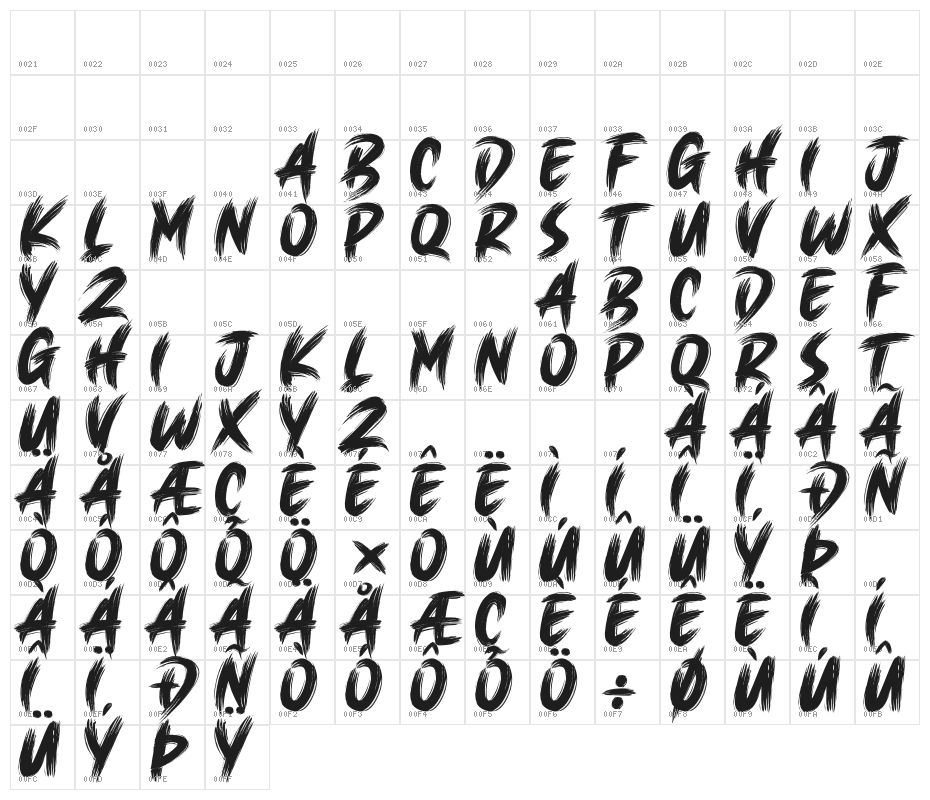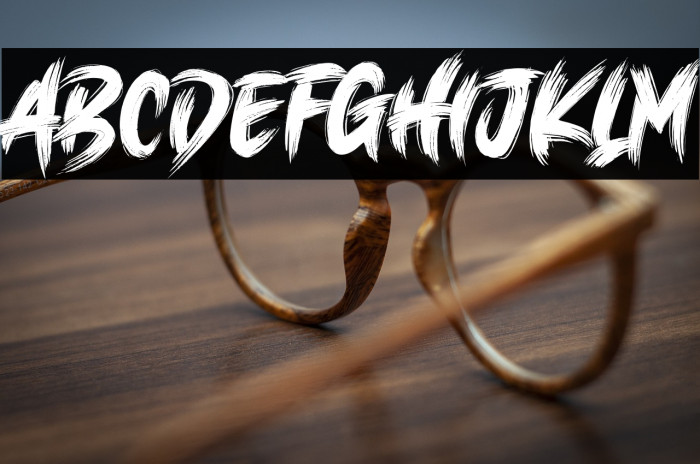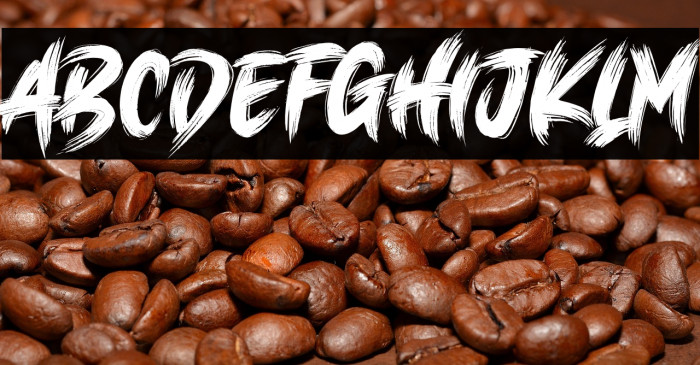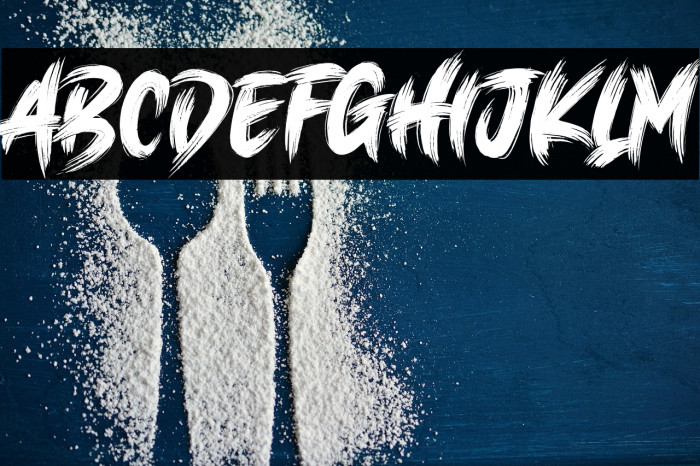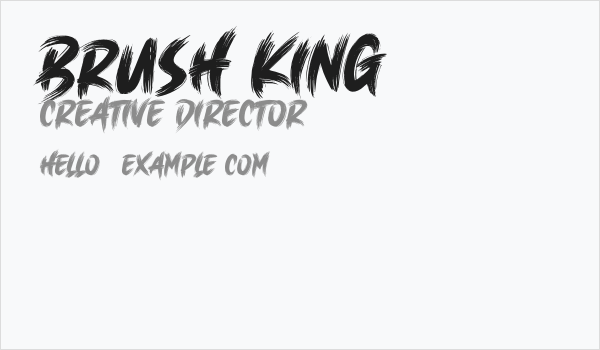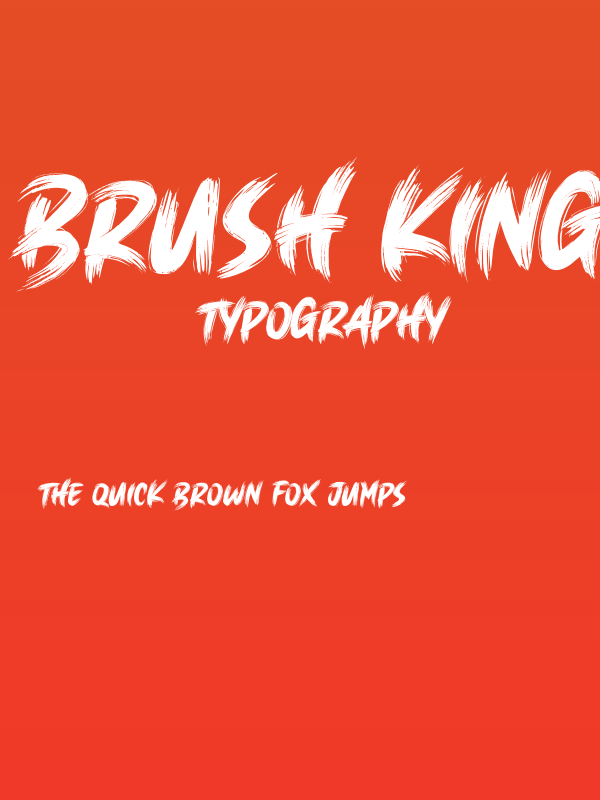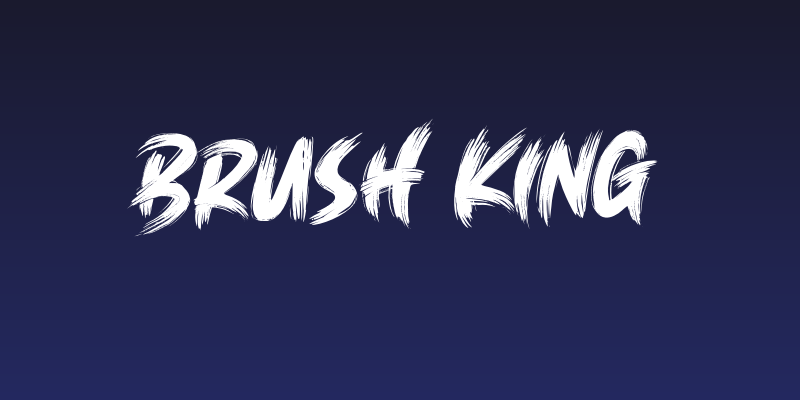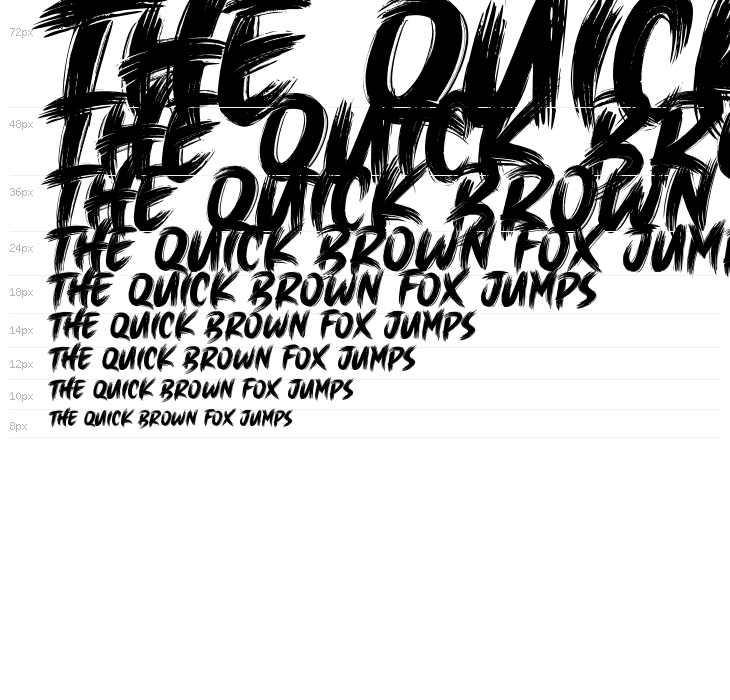
Brush King Font
Brush King Description
This font features a bold, dynamic brush style that exudes energy and movement. Each character is crafted with a rough, textured appearance, reminiscent of hand-painted strokes. The letters are slightly slanted, adding to the sense of motion and fluidity. The boldness of the strokes varies, creating a natural, organic feel. This font is perfect for projects that require a strong, artistic touch, such as posters, branding, and creative designs. Its unique style makes it stand out, capturing attention with its expressive and lively character.
| Proposed Projects | Ideal for posters, branding, creative designs, and any project needing an artistic touch. |